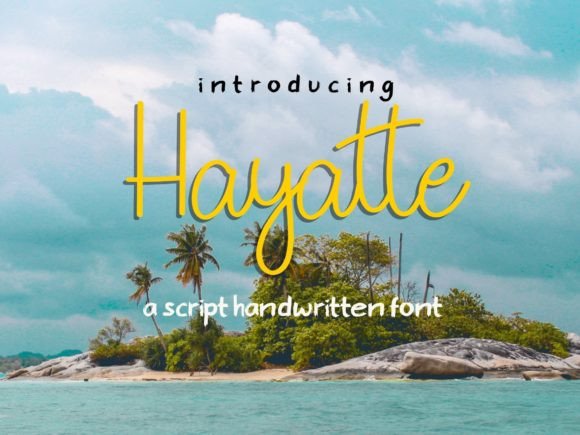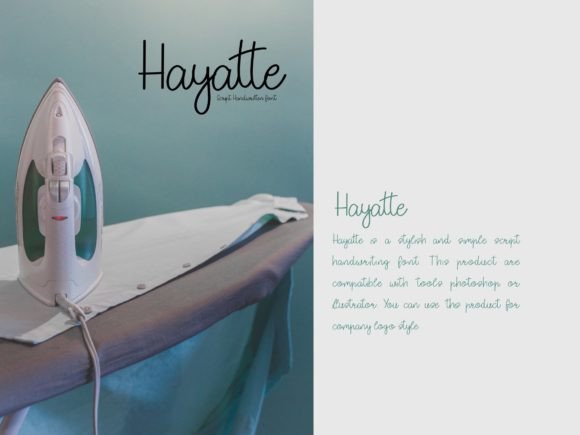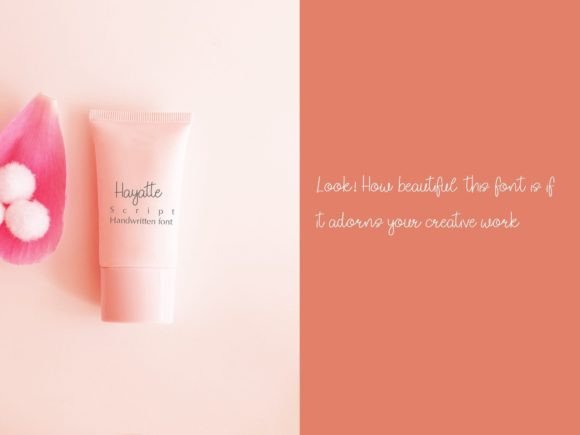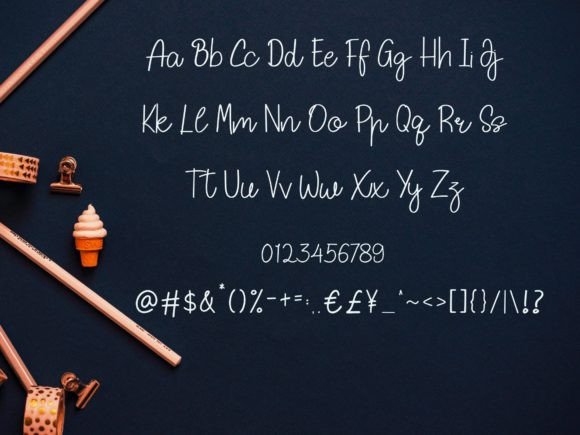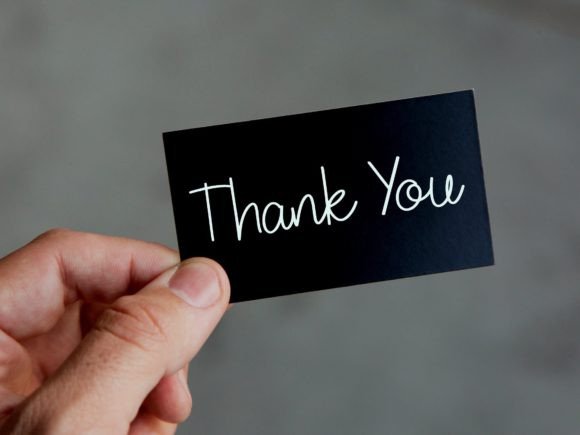
Hayatte Font
About Hayatte Font
Hayatte is a charming and stylish script handwriting font that embodies simplicity and flair. This font offers a wonderful and playful quality, making it a versatile choice for a variety of creative projects. Whether you’re designing logos, crafting invitation cards, working on postcards, or engaging in other creative endeavors, Hayatte adds a touch of charm to your designs.
The simplicity of Hayatte contributes to its accessibility, making it easy to incorporate into a wide range of design contexts. Its stylish script imparts a unique and personalized feel, bringing a creative and distinctive touch to your projects.
This font is particularly well-suited for logos, where its stylish script can create a memorable and visually appealing brand identity. Additionally, it adds a playful element to invitation cards and postcards, enhancing the overall aesthetic and making your designs stand out.
In summary, Hayatte is more than just a font; it’s a creative tool that blends simplicity and style. Embrace its charm to make your logos, invitation cards, postcards, and various creative projects truly great and visually captivating. Let Hayatte add a touch of personality to your designs, making them memorable and engaging.